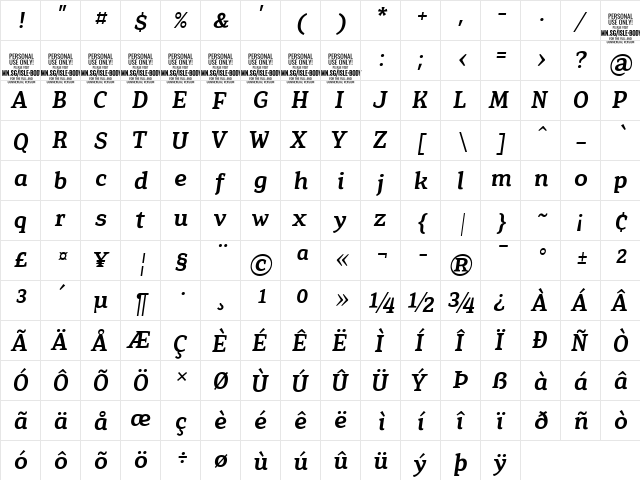
Isle Body PERSONAL USE Medium Italic
Design Context for Isle Body PERSONAL USE Typeface
Isle Body PERSONAL USE takes a measured approach to typography — its balanced proportions and neutral character make it a reliable workhorse for both digital and print work. The slanted form adds forward momentum and visual energy.